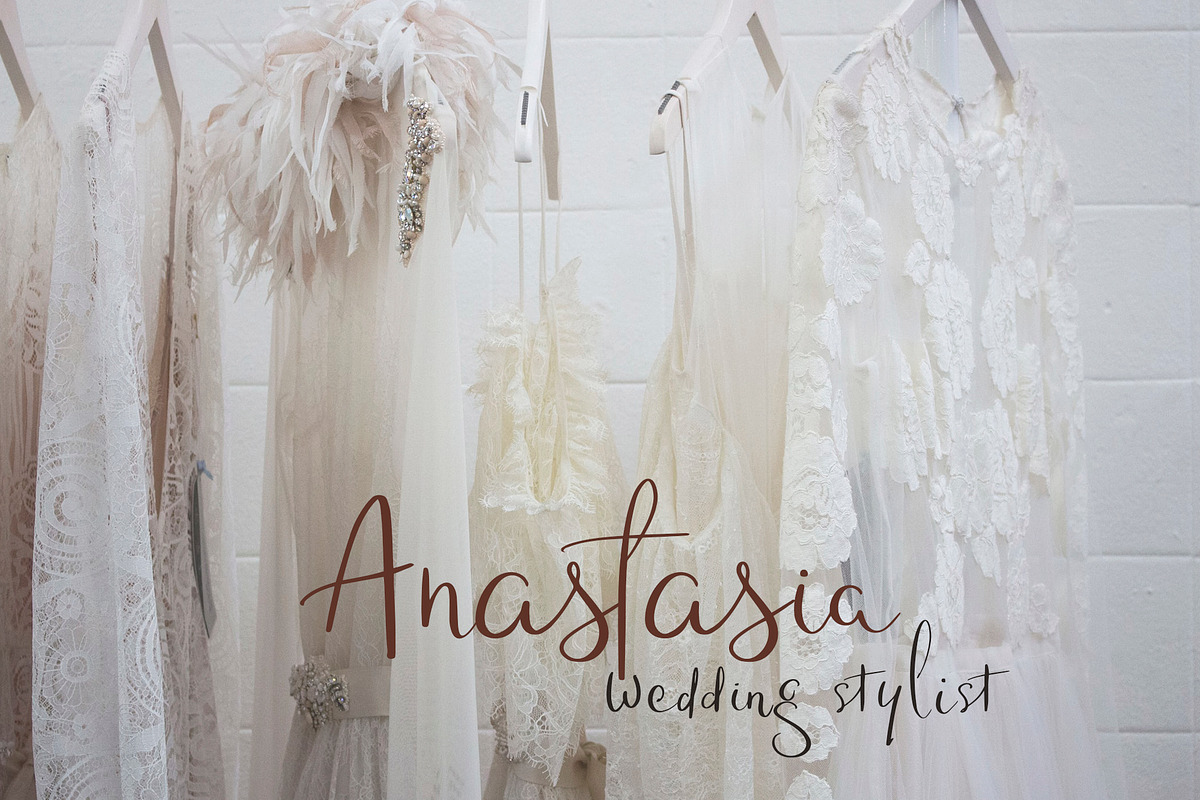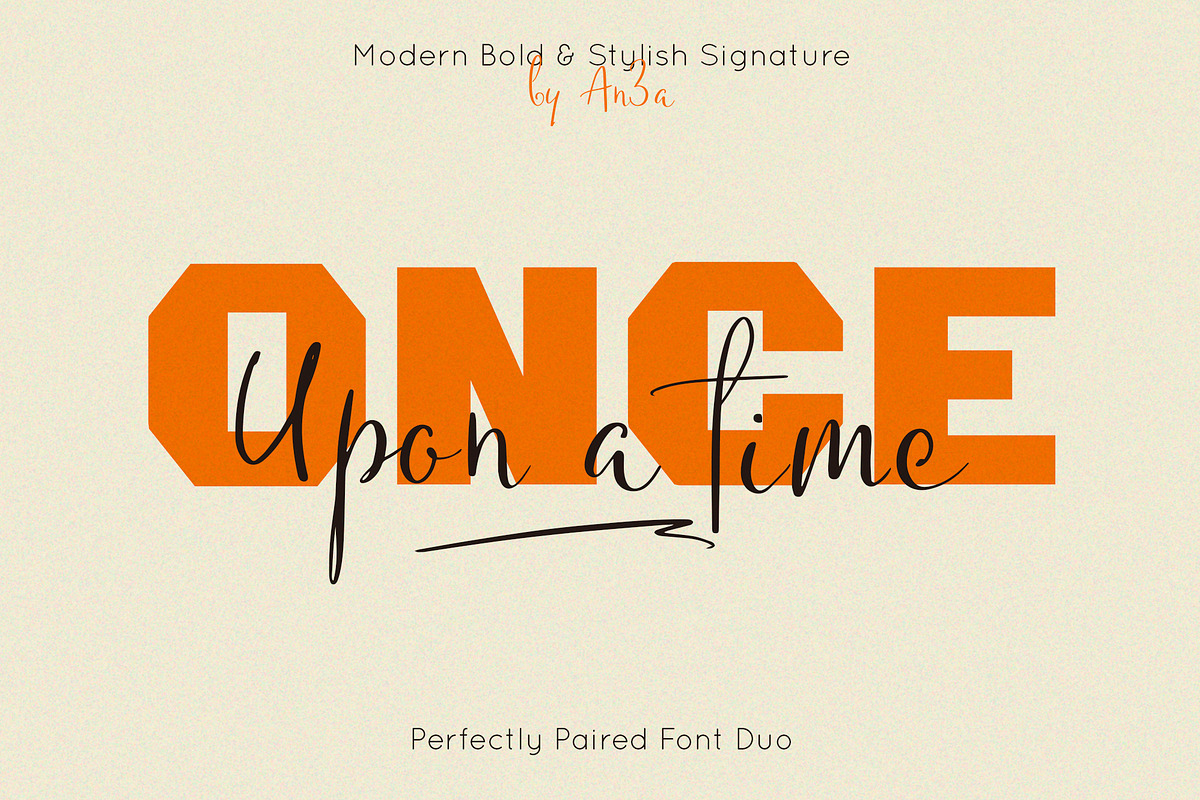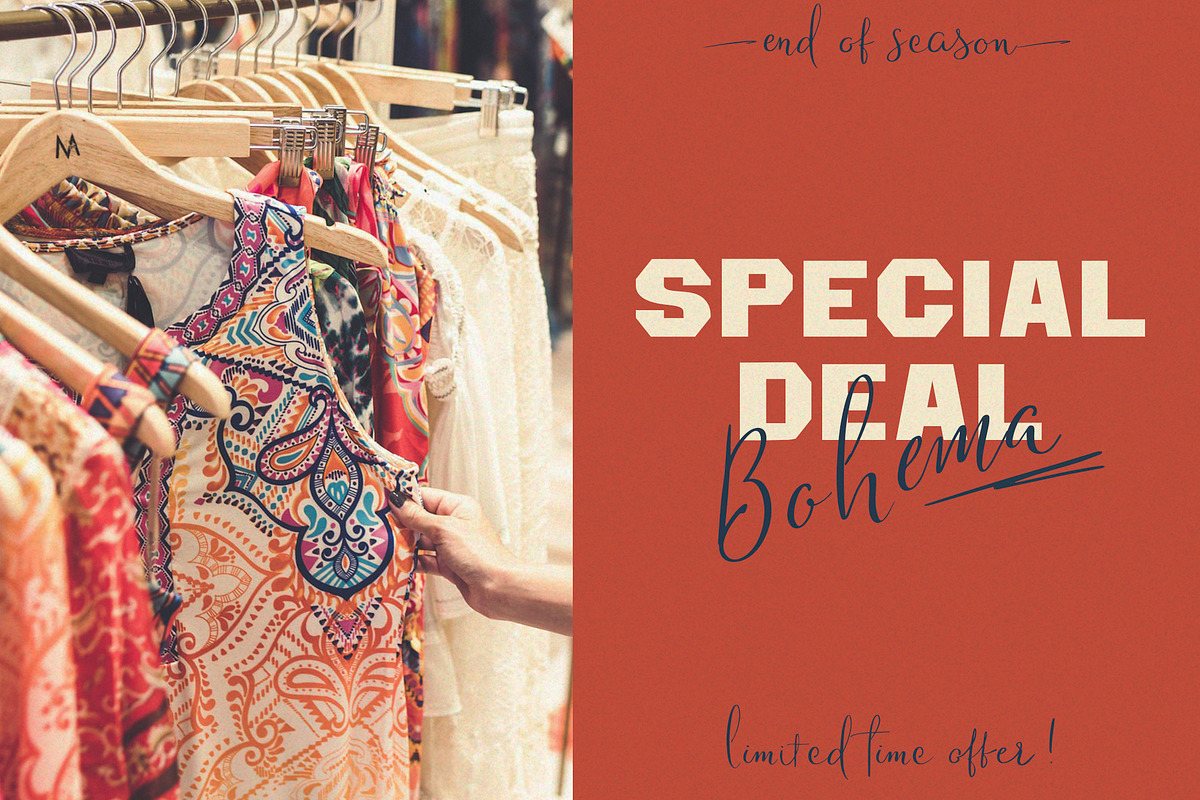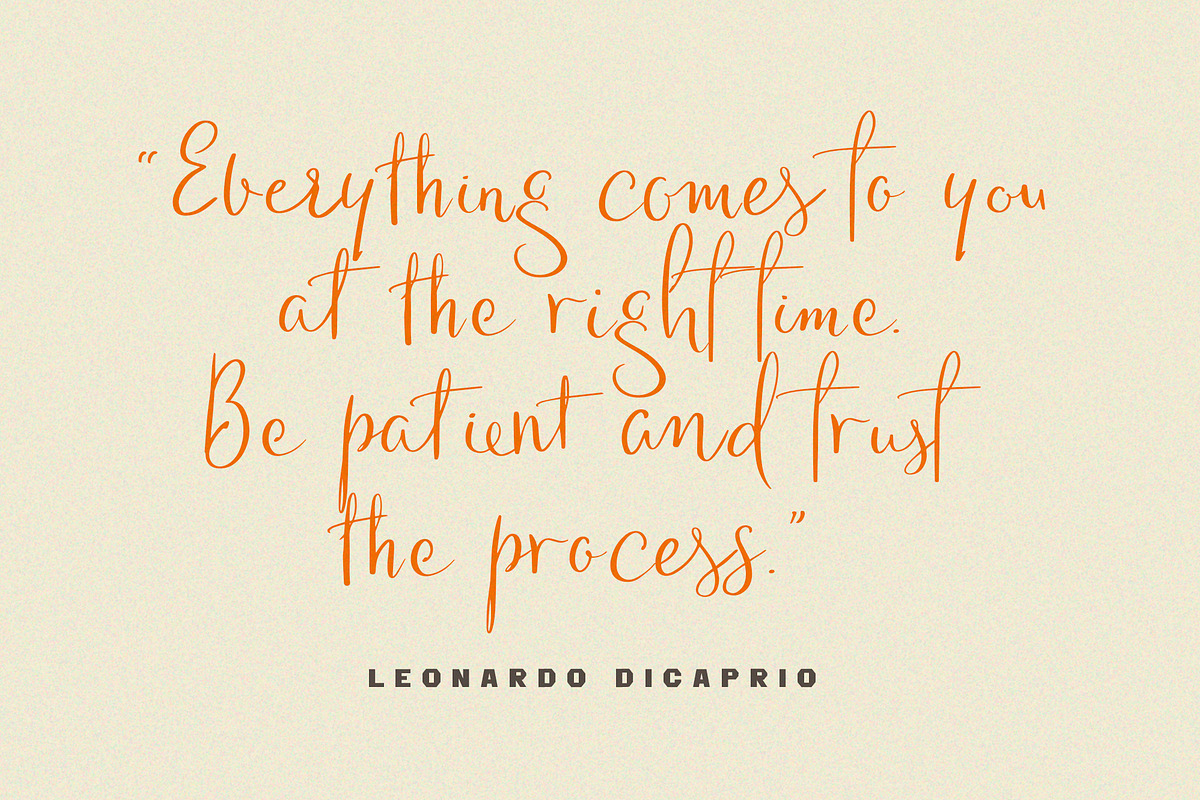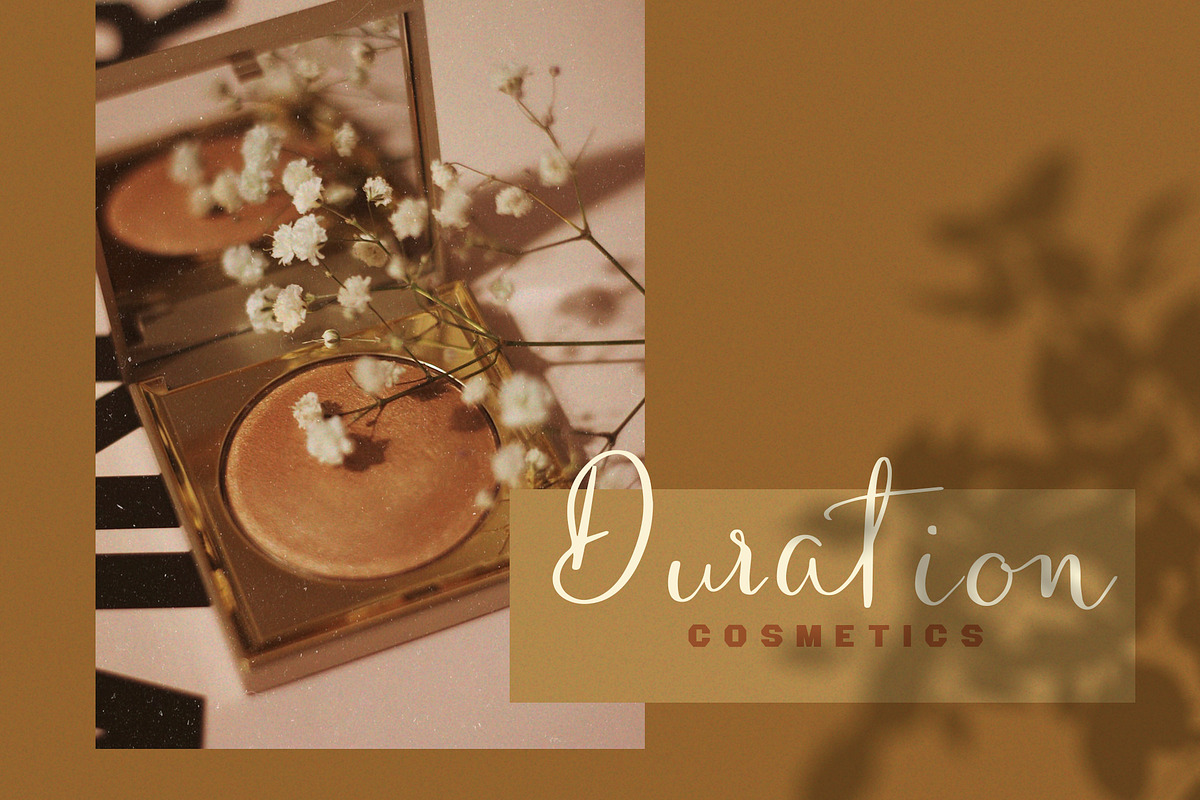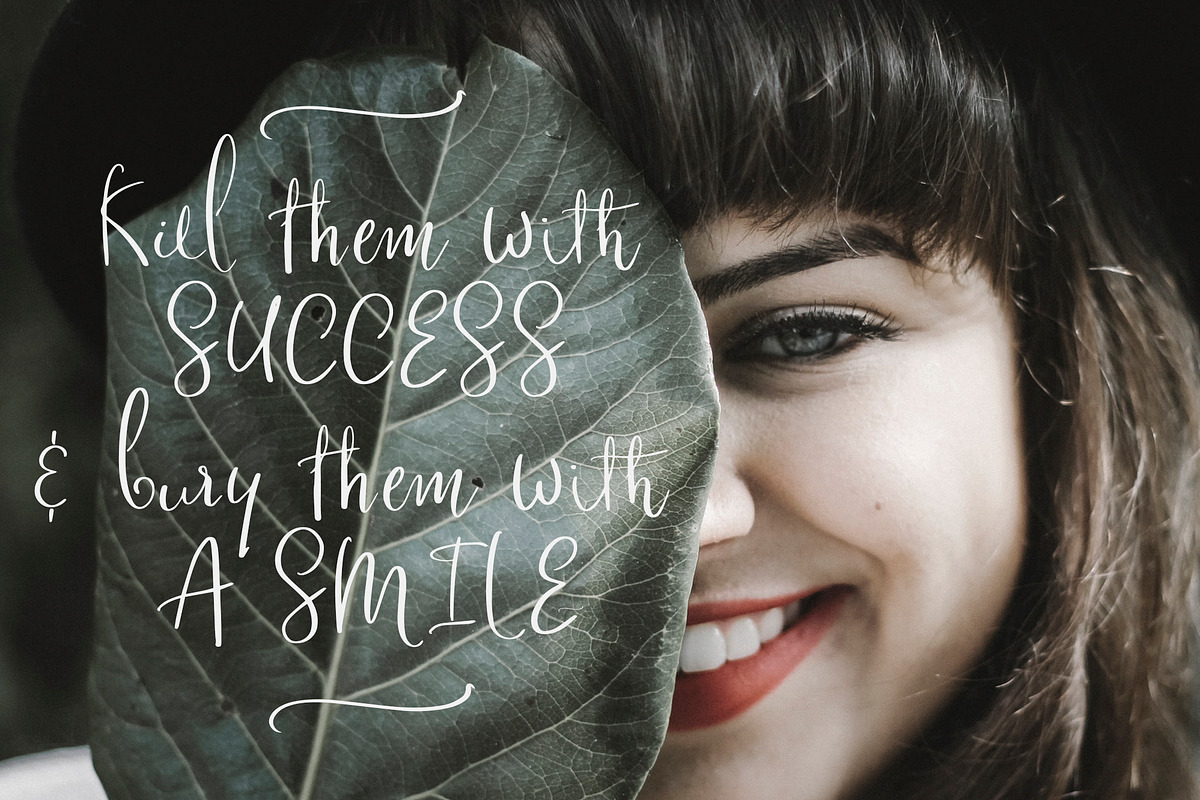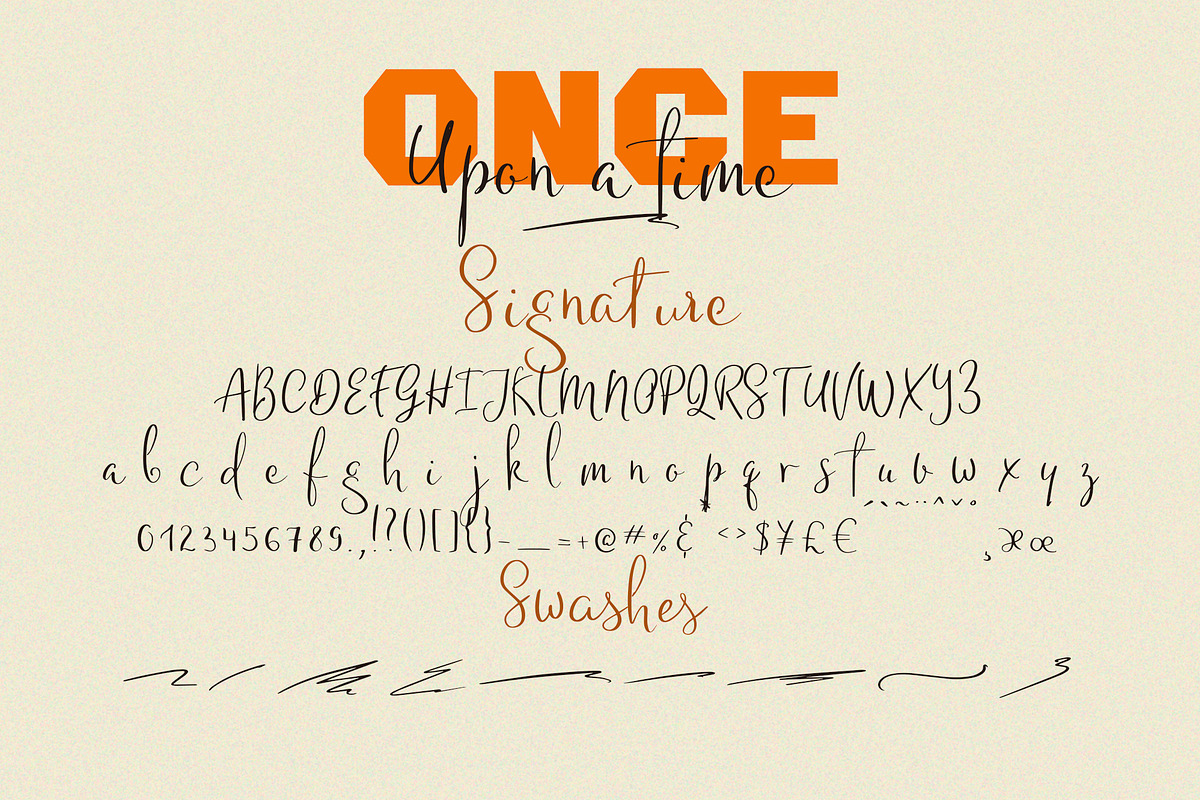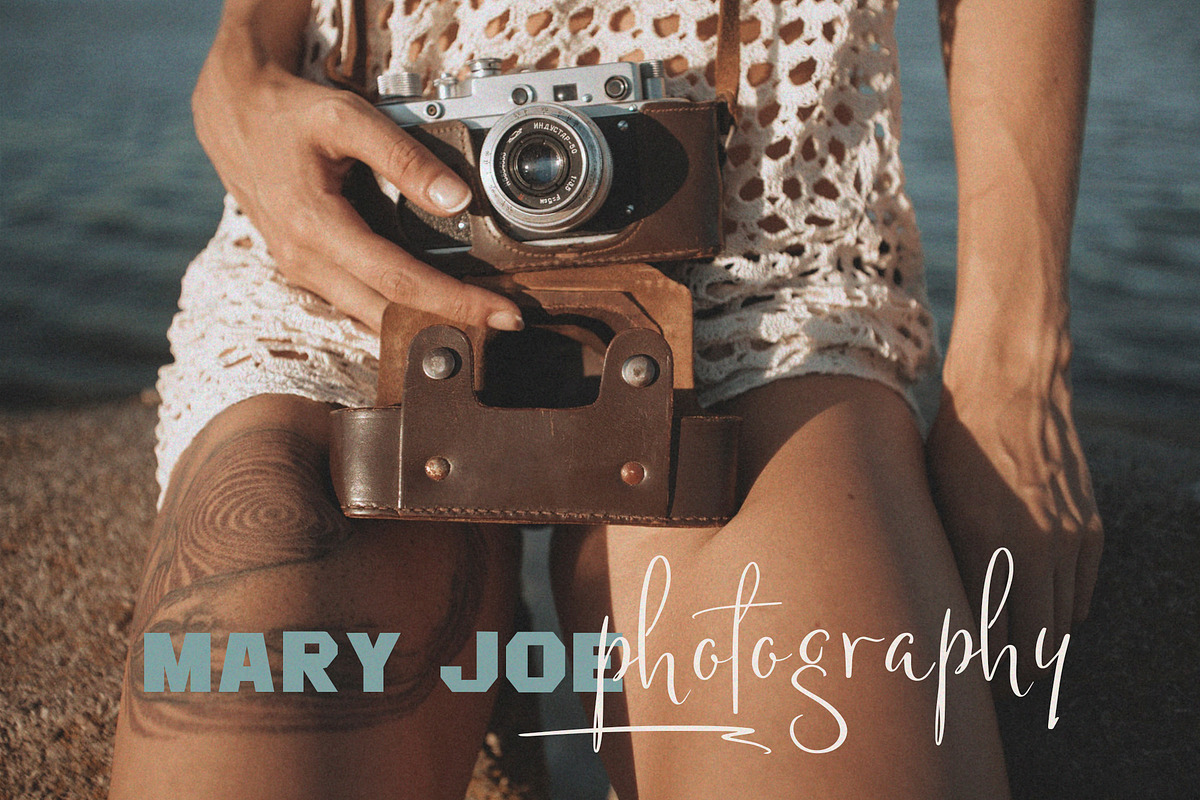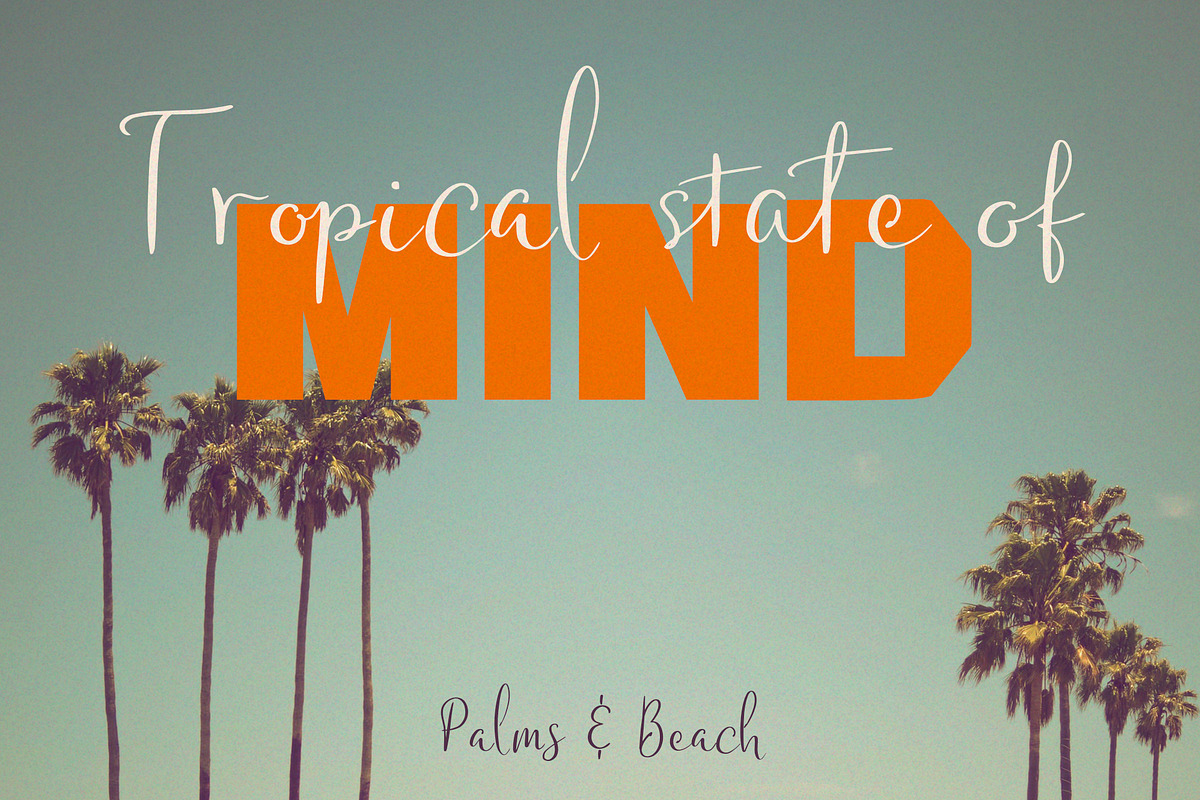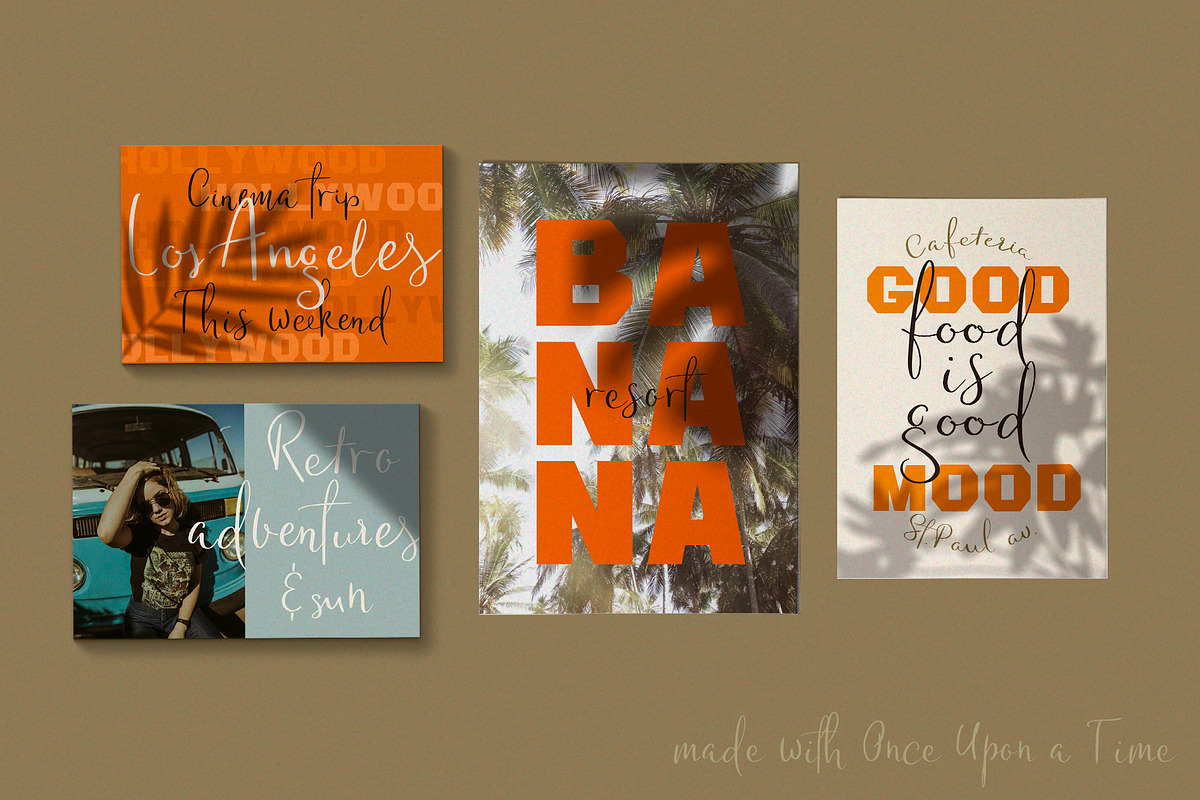
Once upon a time. Paired font duo.
Once upon a time is modern font combination that includes a signature script with lots of ligatures and bold expressive sans serif – ready to be used together for your best design!
Once upon a time is perfect for multiple contexts. Works great in mood boards, posters, logos, headlines, packaging, advertising, branding and so much more.
Once upon a time signature is very stylish and looks naturally hand drawn. It has uppercase and lowercase letters, numbers and basic punctuation, 120 ligatures. Currently only English language is supported, but the following accents are included: ¨ ˜ ´ ˆ ` ˚ ¸
Once upon a time sans serif is extra-loud bold universal and modern font. It is perfect for designers looking to leave an impression. A simple but significant. It has minimal design.
Multilingual support is included (French, German, Italian, Norwegian, Portuguese, Spanish, Swedish,Swiss German).